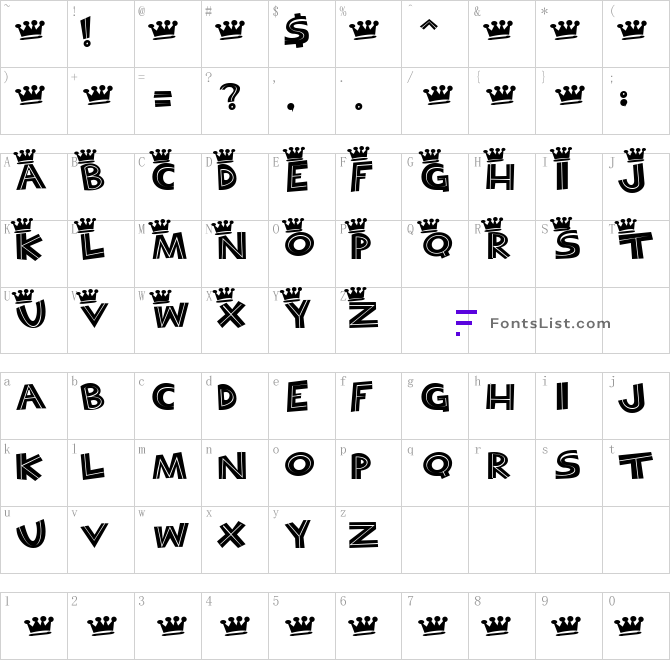
- Font Name:Bayou Cowboy
Bayou-Cowboy.ttf is a very beautiful artistic font, Bayou-Cowboy.ttf is widely used in the design and printing of various books and pictures,Bayou-Cowboy.ttf has a strong visual impact,Bayou-Cowboy.ttf is a commonly used font in newspapers, magazines and books, and is used in posters, e-commerce Poster design, store design, logo design, font design and other fields.Bayou-Cowboy.